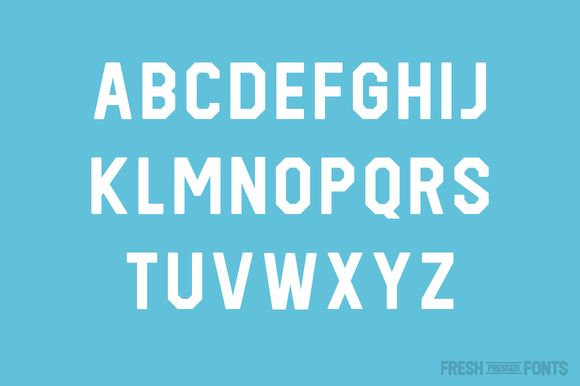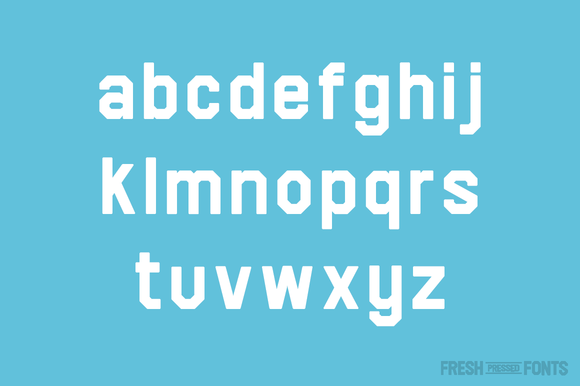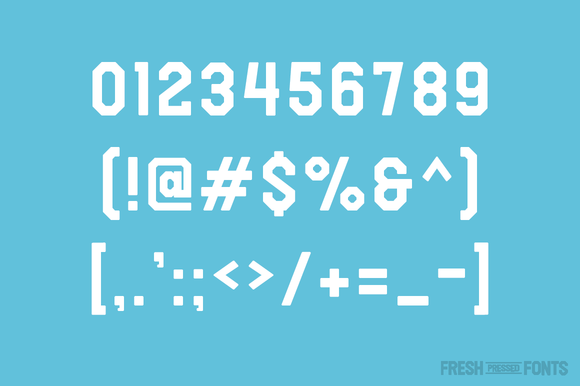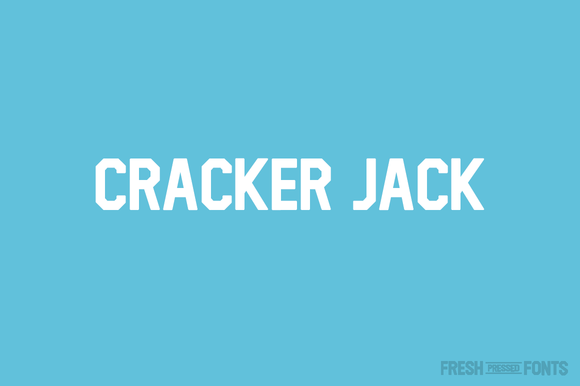
Cracker Jack Font: The Ultimate Sports-Inspired Typeface for Designers
In the world of typography, there are countless fonts to choose from, each with its own unique character and style. For designers and crafters looking for a font that exudes energy, strength, and a touch of playfulness, the Cracker Jack font is an excellent choice. This sports-inspired typeface is designed to make a statement, whether you’re working on a bold display project or a more subtle design.
What is Cracker Jack Font?
Cracker Jack is a sports-inspired typeface that boasts strong geometric angles, giving it a dynamic and athletic feel. The font comes in both upper and lower case, making it versatile and easy to use in a variety of design applications. With a generous glyph library containing over 100 characters, Cracker Jack offers a wide range of options for designers to experiment with.
Key Features of Cracker Jack Font
• Strong Geometric Angles: Cracker Jack’s geometric angles give it a bold and sporty feel, making it perfect for designs that require a dynamic and energetic look.
• Upper and Lower Case: The font comes in both upper and lower case, allowing designers to create a wide range of typography combinations.
• Generous Glyph Library: With over 100 characters, Cracker Jack offers a vast array of options for designers to experiment with, from simple text to complex typography.
Use Cases for Cracker Jack Font
Cracker Jack is an incredibly versatile font that can be used in a variety of design applications. Here are a few examples:
• Display Typography: Cracker Jack’s bold and dynamic design makes it perfect for display typography, such as headlines, titles, and captions.
• Branding and Logo Design: The font’s sporty feel makes it an excellent choice for branding and logo design, particularly for sports teams, fitness brands, and outdoor enthusiasts.
• Packaging and Label Design: Cracker Jack’s unique character and style make it a great choice for packaging and label design, adding a touch of personality to any product.
Benefits of Using Cracker Jack Font
So why choose Cracker Jack font for your design project? Here are a few benefits:
• Unique and Memorable: Cracker Jack’s bold and dynamic design makes it a unique and memorable font that will help your design stand out.
• Versatile: The font’s versatility makes it suitable for a wide range of design applications, from display typography to packaging and label design.
• Easily Readable: Despite its bold design, Cracker Jack is easily readable, even at smaller font sizes.
Tips for Using Cracker Jack Font
To get the most out of Cracker Jack font, here are a few tips:
• Experiment with Different Sizes: Cracker Jack works well at both large and small font sizes, so don’t be afraid to experiment with different sizes to find the perfect fit for your design.
• Play with Color: The font’s bold design makes it perfect for experimenting with different colors and color combinations.
• Mix and Match: Cracker Jack’s versatility makes it easy to mix and match with other fonts, so don’t be afraid to try out different combinations.
In conclusion, Cracker Jack font is an excellent choice for designers and crafters looking for a sports-inspired typeface that exudes energy, strength, and playfulness. With its strong geometric angles, generous glyph library, and versatility, Cracker Jack is perfect for a wide range of design applications. Whether you’re working on a bold display project or a more subtle design, Cracker Jack is sure to make a statement.